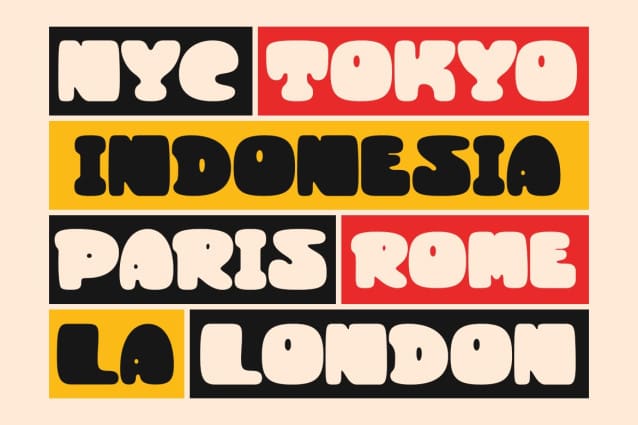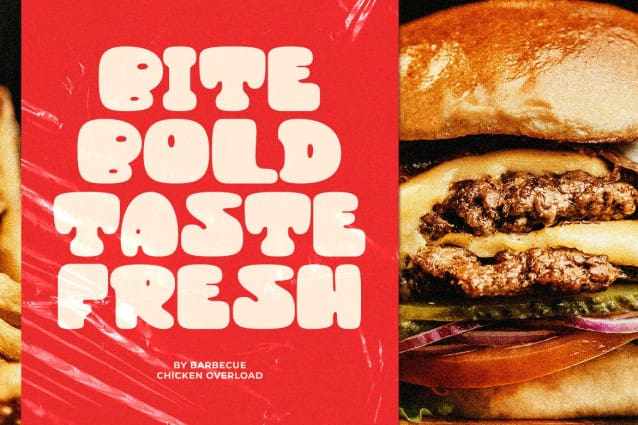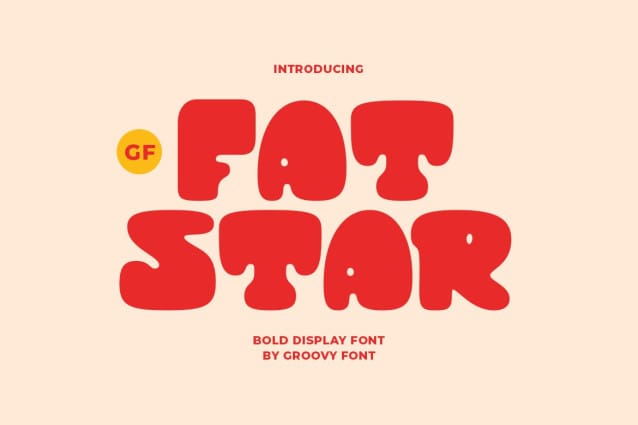
GF Fatstar Font
GF Fatstar Font is a bold display font known for its cheerful and unique appearance. With its bold and striking design, it is ideal for making a statement in creative projects that call for a strong visual impact. This font is sure to catch the eye and add a touch of playfulness to any design.